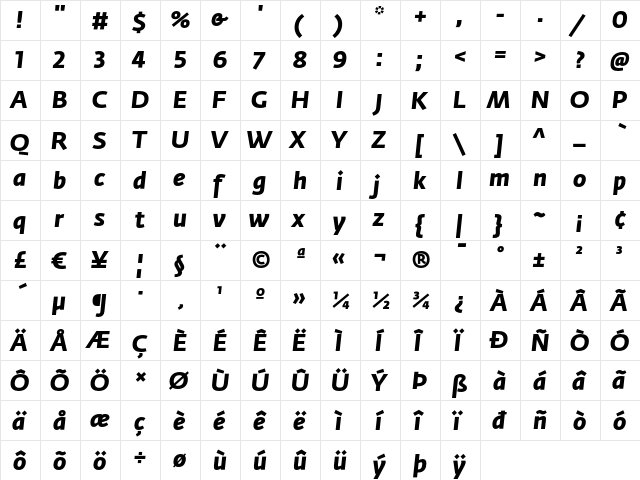
Fedra Sans Bold Italic Font Preview
Design Context for Fedra Sans Typeface
Fedra Sans takes a measured approach to typography — its balanced proportions and neutral character make it a reliable workhorse for both digital and print work. The dynamic lean of this cut emphasises speed and emphasis in any layout. The heavy weight commands attention and anchors typographic hierarchies.